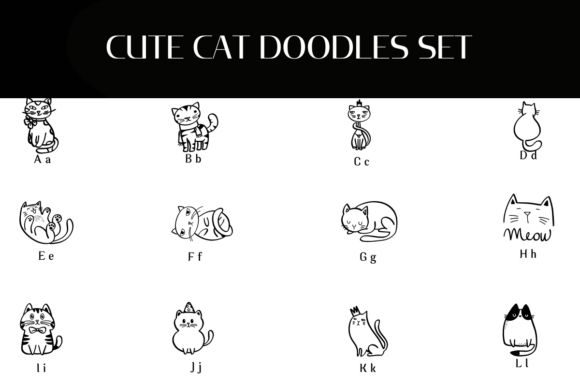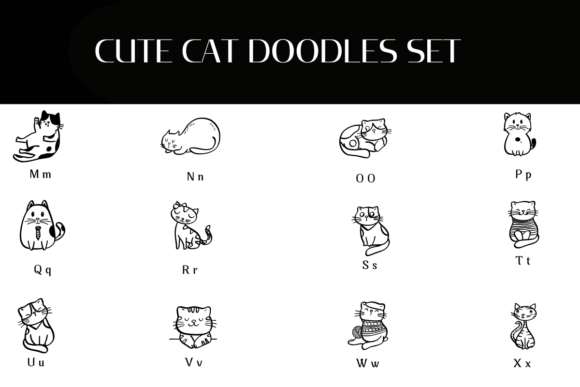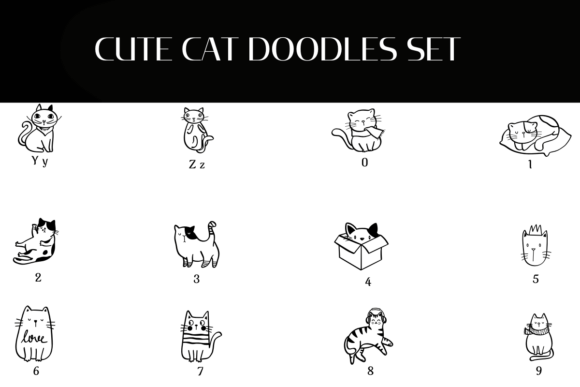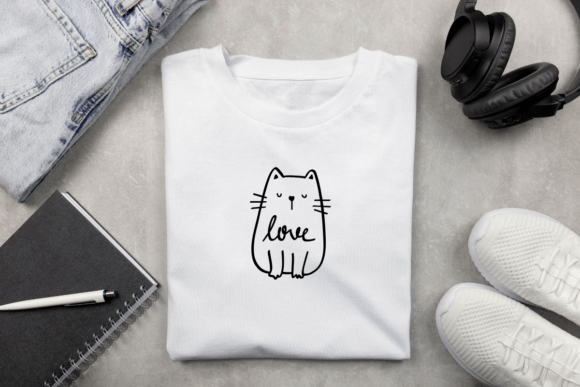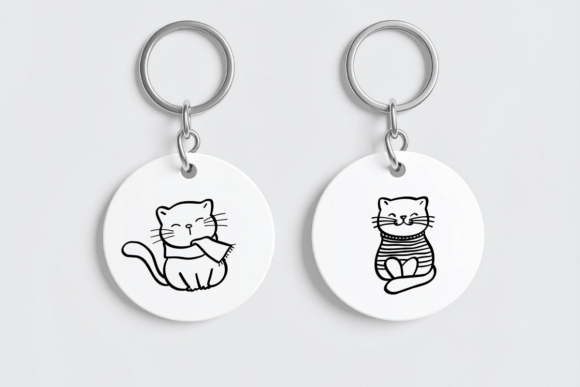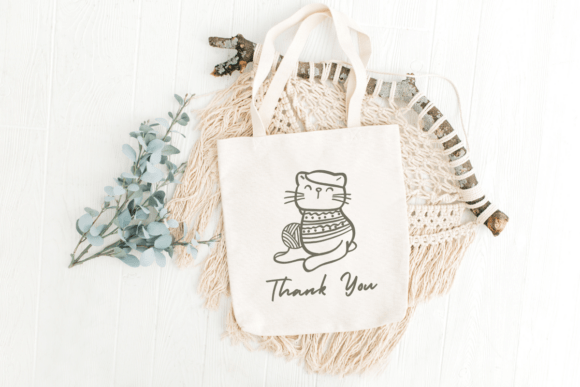
Cute Cat Doodles Set Font: A Whimsical Feline Font for Designers and Crafters
Are you a designer or crafter looking for a fun and creative way to add some personality to your projects? Look no further than the Cute Cat Doodles Set Font! This charming dingbats font is packed with adorable hand-drawn cat illustrations that will bring a smile to anyone’s face. In this article, we’ll explore the features and benefits of the Cute Cat Doodles Set Font and show you how to use it to add some feline charm to your designs.
What is the Cute Cat Doodles Set Font?
The Cute Cat Doodles Set Font is a unique and whimsical typeface that features a wide variety of cat personalities. From sleepy kittens and cats in ties to playful tabbies and cats with “Meow” and “Love” speech bubbles, this font has it all. With its hand-drawn illustrations, the Cute Cat Doodles Set Font is perfect for pet-themed branding, nursery decor, and personalized stationery for cat lovers.
Key Features of the Cute Cat Doodles Set Font
- Wide variety of cat illustrations: The Cute Cat Doodles Set Font features a vast collection of cat illustrations, each one unique and adorable in its own right.
- Easy to use: Integrating these illustrations into your designs is as simple as typing a letter, making the Cute Cat Doodles font an incredibly efficient tool for adding character to your projects.
- Perfect for designers and crafters: Whether you’re designing for a veterinary clinic or just want to add some personality to a greeting card, the Cute Cat Doodles font offers an endless supply of feline charm.
How to Use the Cute Cat Doodles Set Font
- Pet-themed branding: Create custom logos, business cards, and marketing materials for pet-related businesses.
- Nursery decor: Add some feline charm to nursery walls, bedding, and curtains.
- Personalized stationery: Create custom greeting cards, invitations, and gift tags for cat lovers.
Benefits of Using the Cute Cat Doodles Set Font
So why choose the Cute Cat Doodles Set Font for your next project? Here are just a few benefits:
- Adds personality to your designs: The Cute Cat Doodles Set Font is a great way to add some whimsy and personality to your designs.
- Time-saving: With its easy-to-use interface and vast collection of illustrations, the Cute Cat Doodles font saves you time and effort.
- Endless creative possibilities: The Cute Cat Doodles font offers an endless supply of feline charm, allowing you to create unique and creative designs.
- Experiment with different font sizes: Try using the Cute Cat Doodles Set Font in different sizes to create unique and interesting effects.
- Combine with other fonts: Mix and match the Cute Cat Doodles Set Font with other fonts to create visually appealing designs.
- Use for seasonal projects: The Cute Cat Doodles Set Font is perfect for seasonal projects, such as Christmas or Halloween-themed designs.